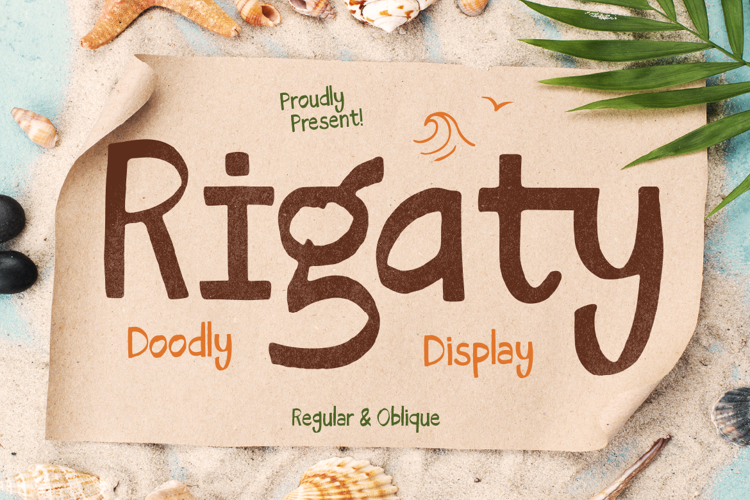
Rigaty Font
Playful doodle font with handmade charm! Rigaty is perfect for kids design, quotes, packaging & fun summer projects. Comes in 2 quirky styles.